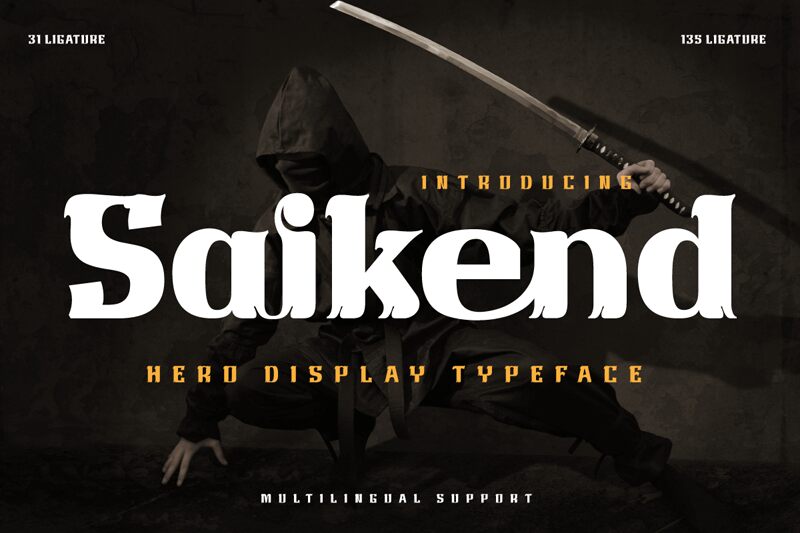
Saikend font family by twinletter is a free font family in a fancy style that can harmonize with numerous contemporary design contexts. Supported by a strong visual presence, it combines historical influences with a decorative modern approach that gives it clear versatility. When used as the central element in a design, it certainly can make your project pop; however, using it in a subtler way allows for a delicate decorative touch.
Saikend font family can be used in several different contexts such as advertisements, video games, movies, social media, cards, invitations, stationery, banners, posters, gifts, brochures, and packaging. Its assertive personality can particularly benefit designs related to themes such as adventure, mystery, and history.